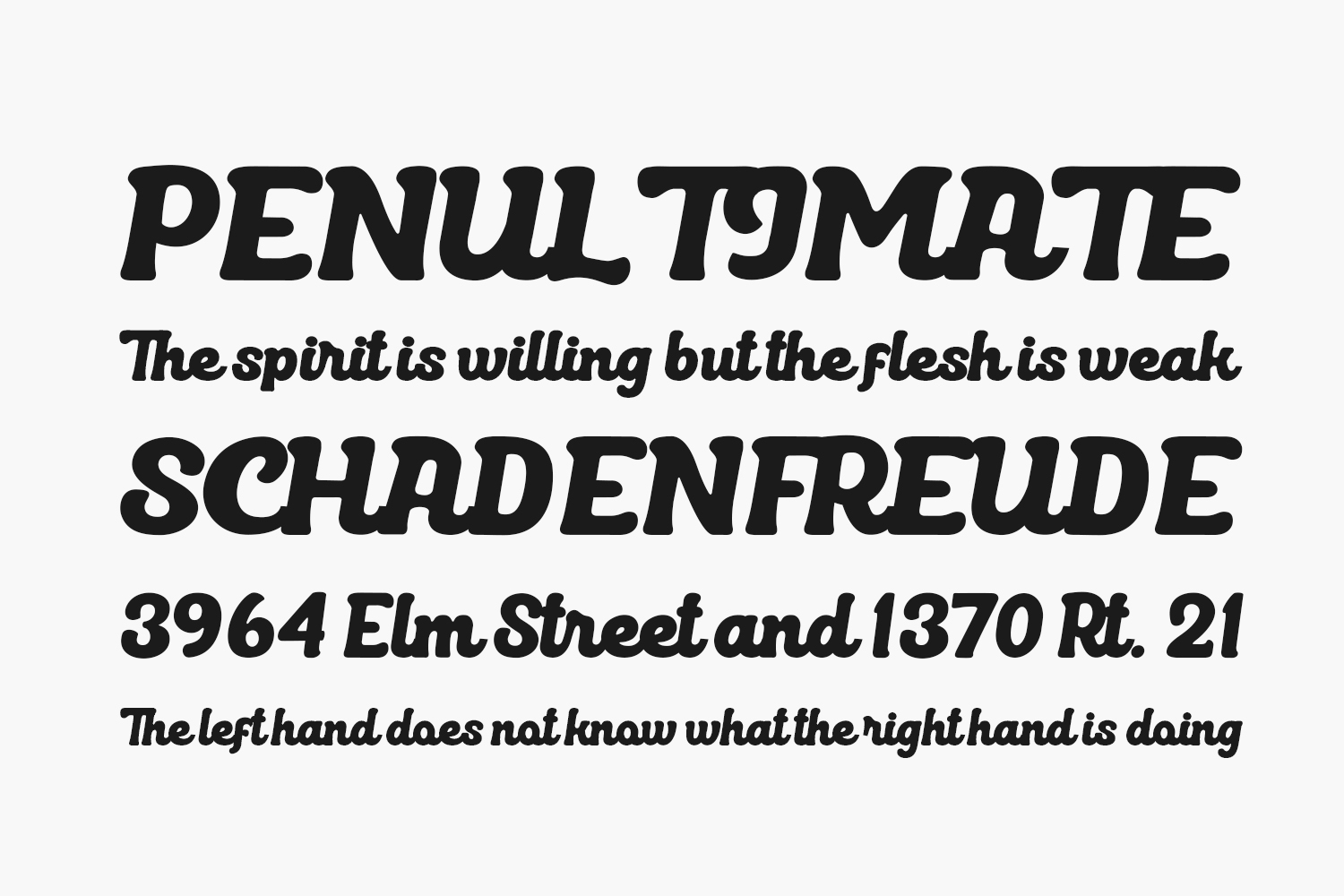
Retro Beach Free Font is a chic and paint brushed handwritten font. Download the font for free if you need it for personal use or purchase the full version for commercial use.
Designed by Eknoji Studio